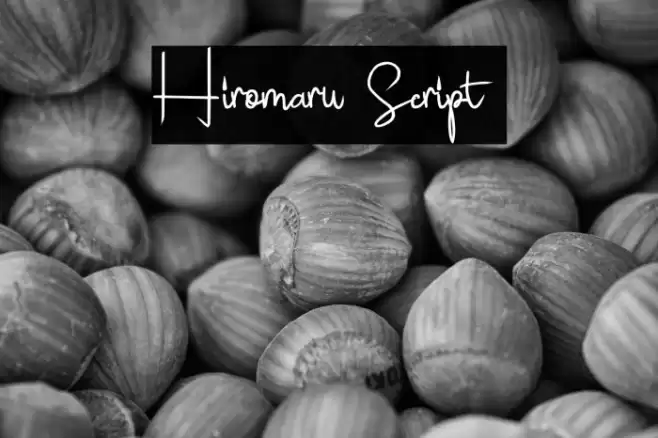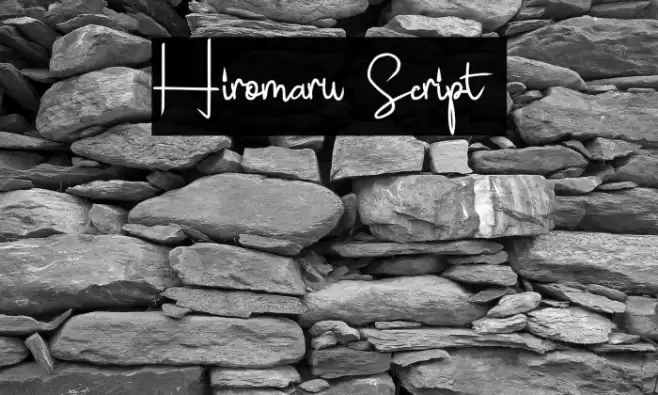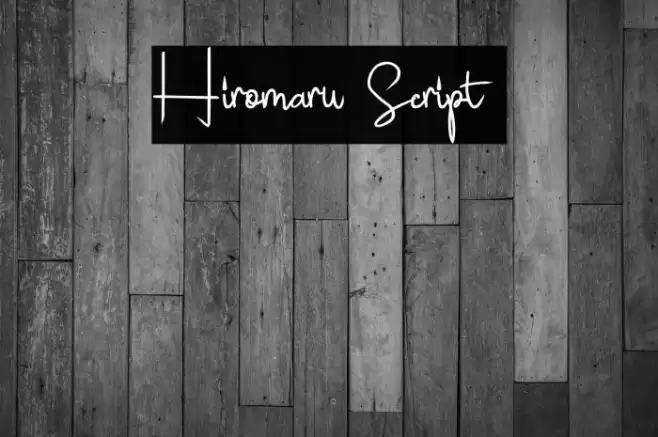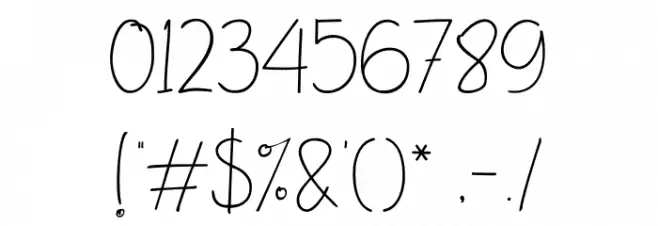
Hiromaru Script Font
Hiromaru Script Description
This font features a playful and whimsical script style, characterized by its flowing and connected letterforms. The uppercase letters are tall and slender, with a slight slant that adds a dynamic feel. The lowercase letters are more compact, maintaining the same fluidity and elegance. The numbers are consistent with the overall style, offering a cohesive look. Special characters are creatively integrated, enhancing the font's artistic appeal. The strokes are thin, providing a delicate and airy appearance that is both modern and approachable.
A playful and whimsical script font with flowing, connected letterforms from Regular fonts.
- Proposed Projects: Ideal for invitations, greeting cards, branding, and creative projects that require a personal touch.
- Weight: Light
- Use Case: Logos, Invitations, Greeting Cards